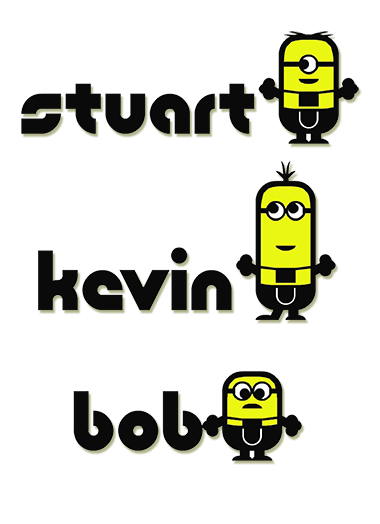
Cute minions have taken over Fontstruct. They look like a sprite for a game (?). Fontstruct is cool, and it is endless fun. 10/10
Very good, you really captured the character of bob, stuart and kevin! All you need now is a voice actor to animate them.
Love it!!! :)
Congratulations! FontStruct Staff have deemed your FontStruction worthy of special mention. “Miniminions” is now a Top Pick.
I'm in love with this pretty one!
Wow!
You should do a Color Version, some Background Minions and the Purple Minions!